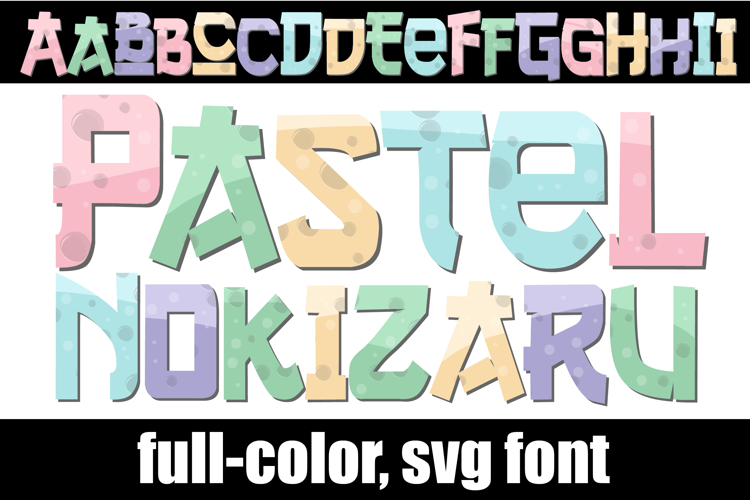
Pastel Nokizaru Color Font
This full-color, pastel-colored font features an Asian style font. There is an alt case of each letter with a different color combination.